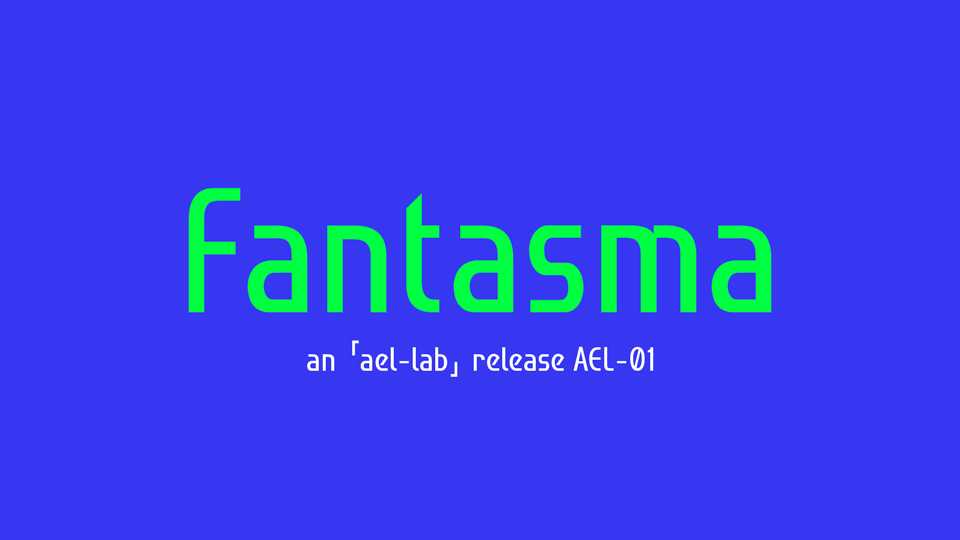
Download Fantasma font, a modern sans serif typeface with geometric and condensed letterforms. Fantasma is functional for editorial design, visual identities or digital applications
Designer: Froyo Tam